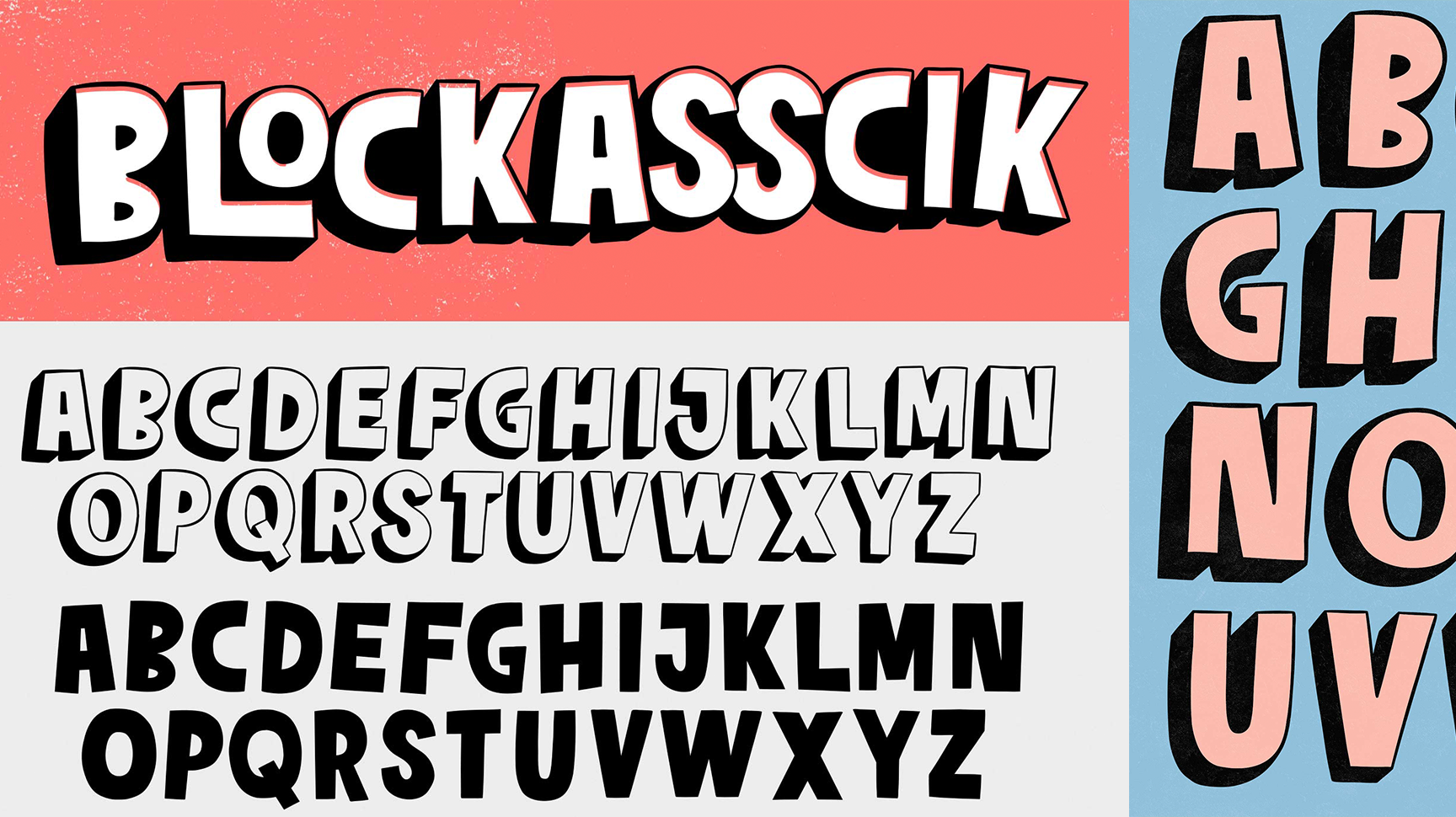
Blockasscik Font
Chris Piascik
A bold playful display font with 3D caps!
Uppercase letters feature 3D effect, lowercase letters do not. Mix and match for maximum fun.